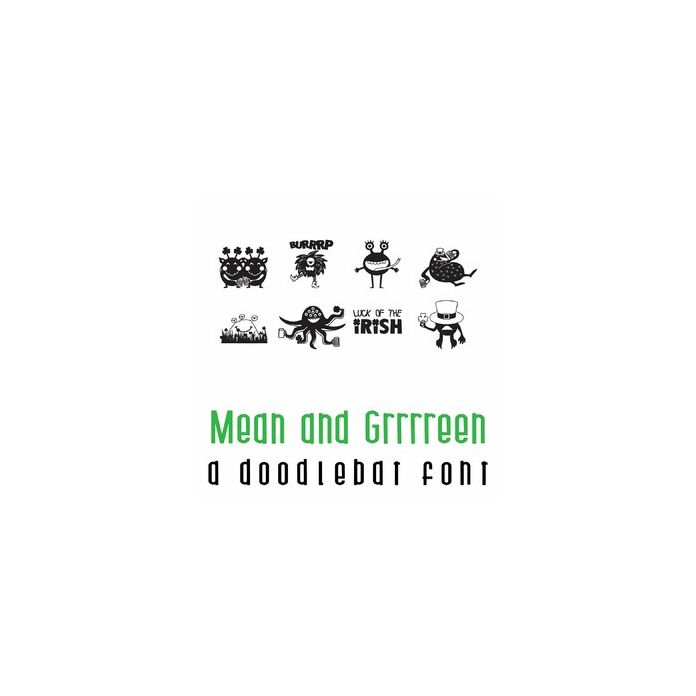
This fun doodlebat font features 26 adorable monsters ready for St. Patrick's Day Perfect for cards, crafts, gifts, decor, scrap book pages, planner stickers and more!